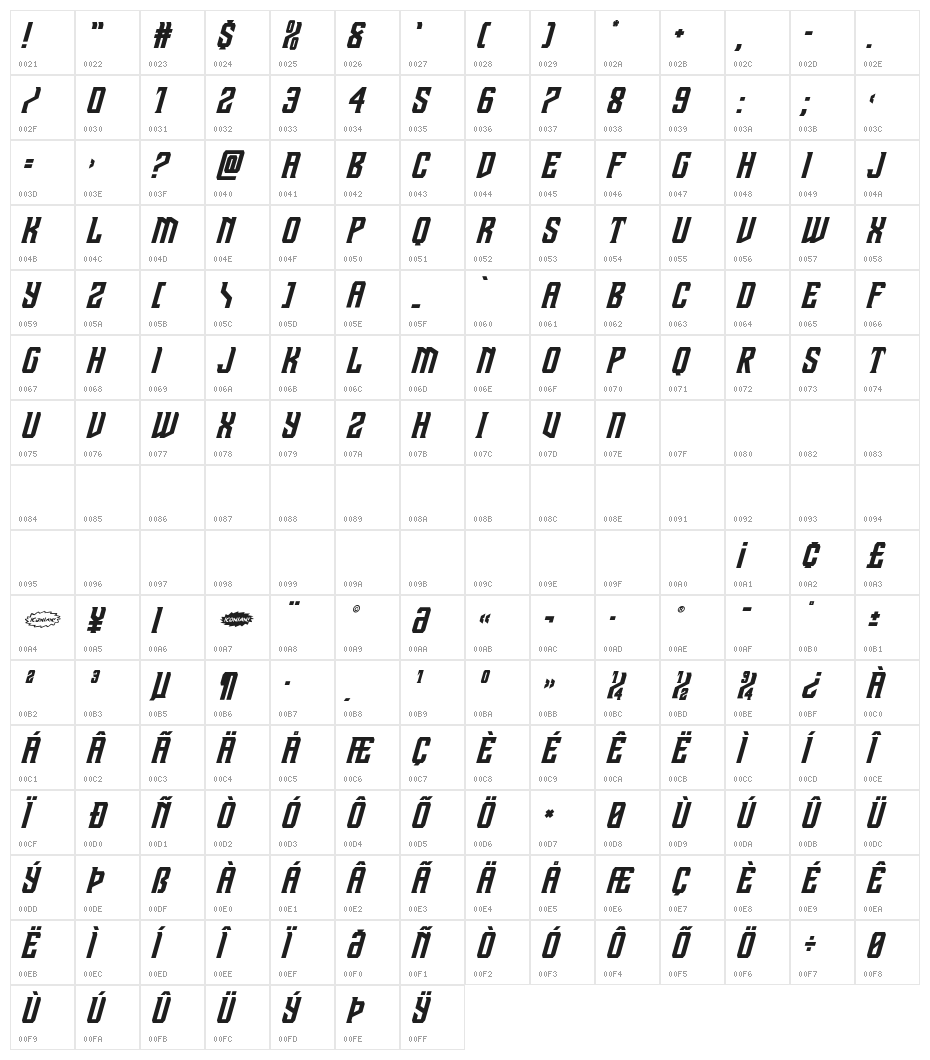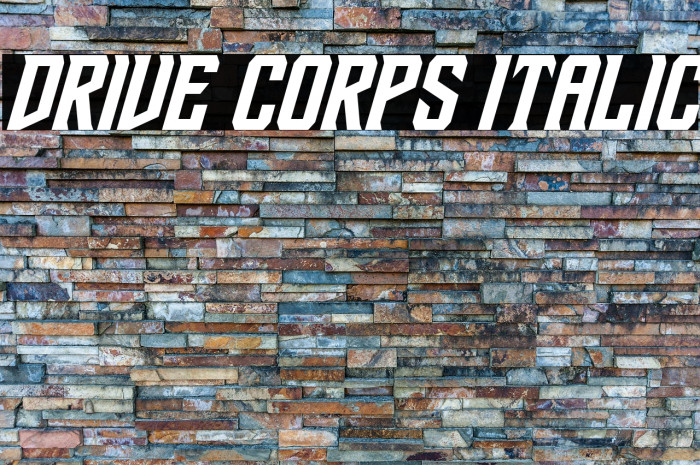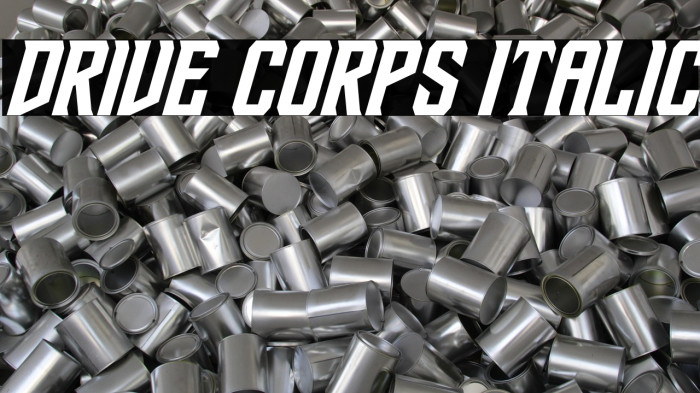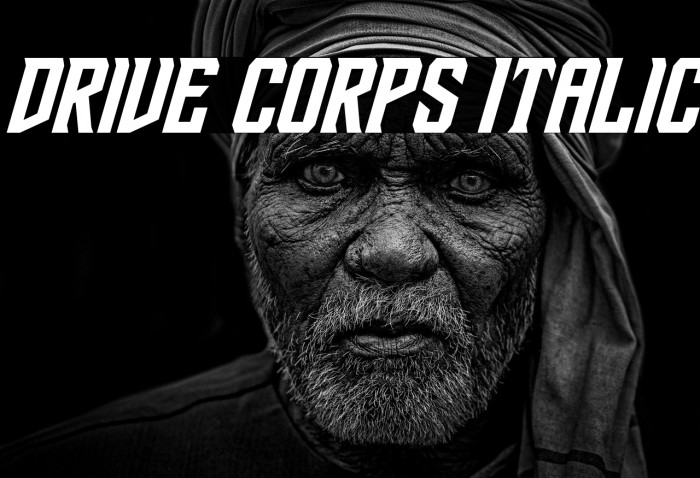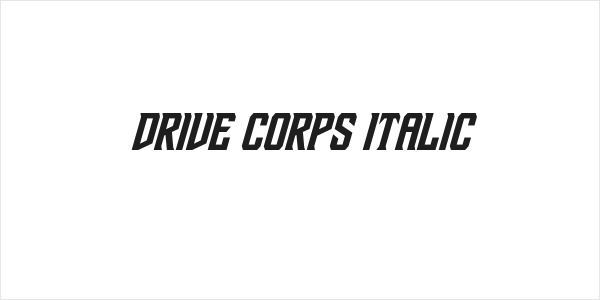
Drive Corps Italic Font
Drive Corps Italic Description
This font features a bold, italicized style with a strong, angular design. The characters are sharply defined with a consistent slant, giving a sense of motion and energy. The uppercase and lowercase letters maintain a uniform height, while the numbers and special characters complement the overall aesthetic. The font's boldness is emphasized by its thick strokes and tight character spacing, making it highly legible and impactful. Its modern and dynamic appearance is suitable for projects that require a strong visual presence.
Proposed ProjectsIdeal for sports branding, automotive advertisements, dynamic posters, and action-themed designs.